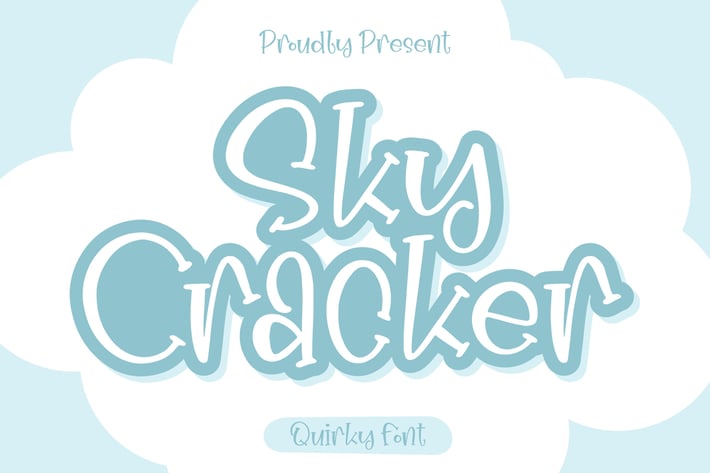
Sky Cracker Quirky Font
Sky Cracker is a fun and whimsical display font with bouncy letterforms and a hand-drawn outline. It brings an energetic, childlike charm to any project—perfect for children’s party invitations, playful branding, and casual posters. Its quirky style adds an instant sense of joy and creativity, making your headlines pop with personality.
+ Single playful display style
+ Full uppercase & lowercase alphabets
Perfect for:
+ Children’s party invites & birthday cards
+ Playful branding & logos
+ Fun social media graphics
+ Greeting cards & stationery
+ Casual posters & flyers
Make your headlines burst with playful energy using Sky Cracker!